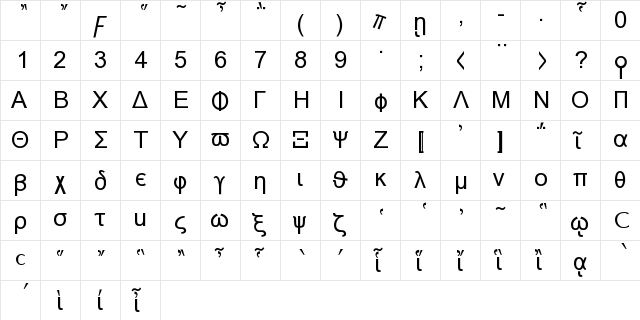
Naxos Normal Font Preview
Naxos Normal
Naxos Normal Font Details
Design Context for Naxos Typeface
Naxos takes a measured approach to typography — its balanced proportions and neutral character make it a reliable workhorse for both digital and print work.